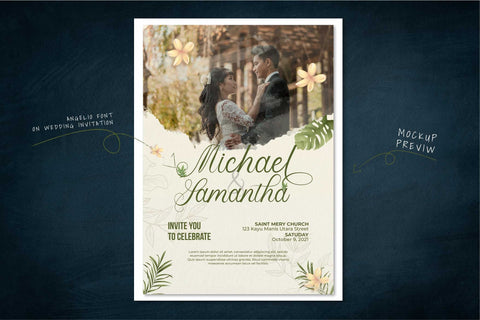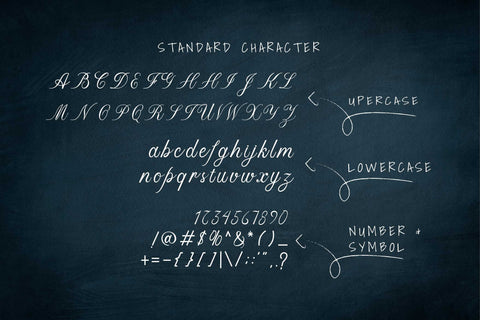
Angelio Handlettering Font
Angelio Handlettering Font is a design font with an elegant style that can enhance the quality of your designs.
+ Standard glyph
+ Alternate Character SS01
+ Ligature